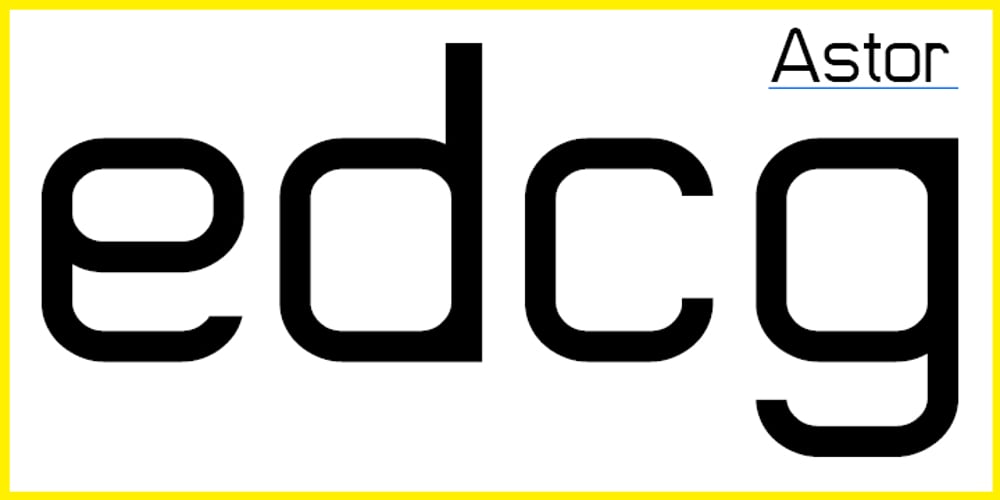
Astor
Astor font
Astor Font Family was designed by Aldo Novarese, Branislav Jakovljev and published by Lab-Dot. Astor contains 1 styles and family package options. New Eurostile! A redesigned Eurostile font, Astor font, was created inspired of one of most used fonts in the world. Idea was to make new, contemporary design of old Eurostile font which was created 1962. by designer Aldo Novarese. Main characteristics and features of Astor font are: beautiful design and contemporary font. May be used like display font, cargo font, OCR font. Most of glyphs have same thickness and high modularity in combining 2 or more glyphs. Good for architect’s projects, labeling, making environmental typography installations, for use of some interior or exterior designs, furniture designs etc.